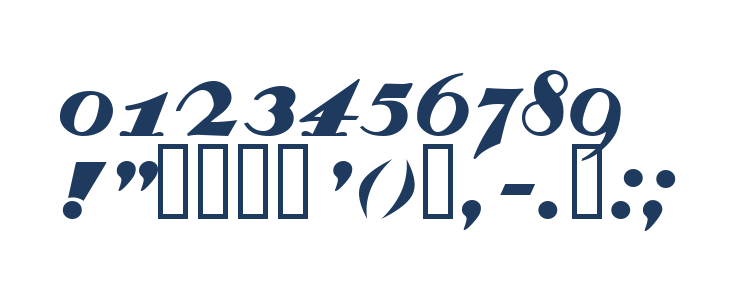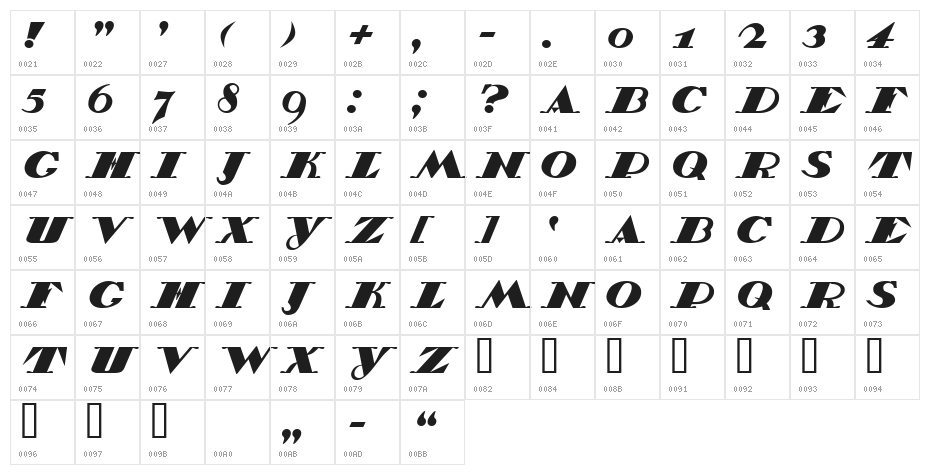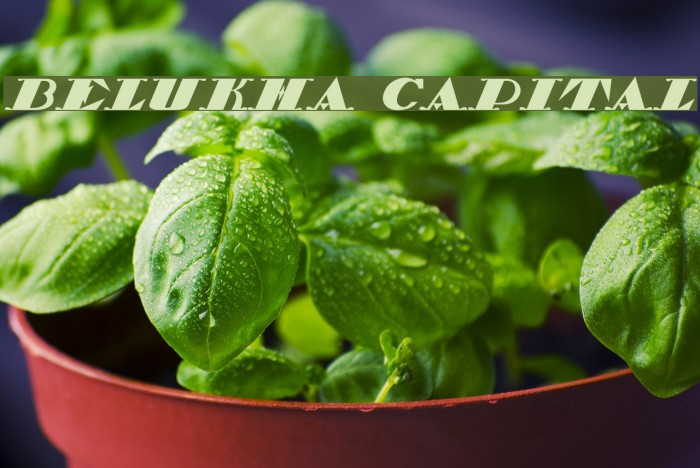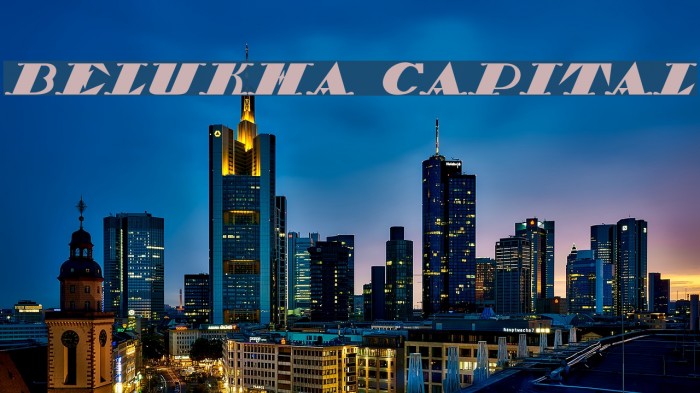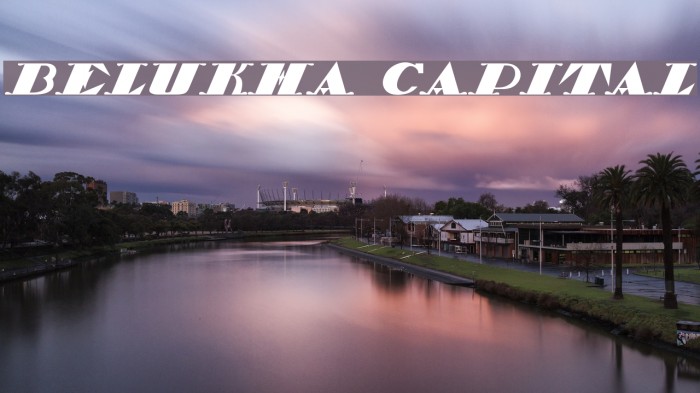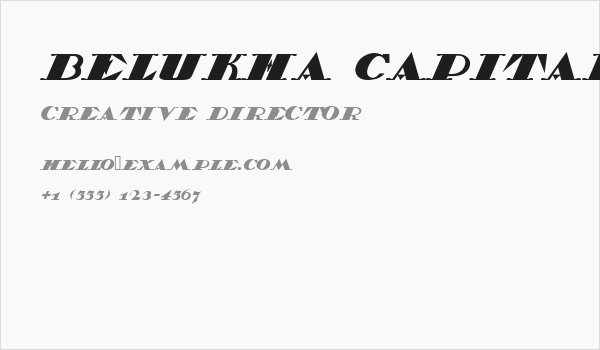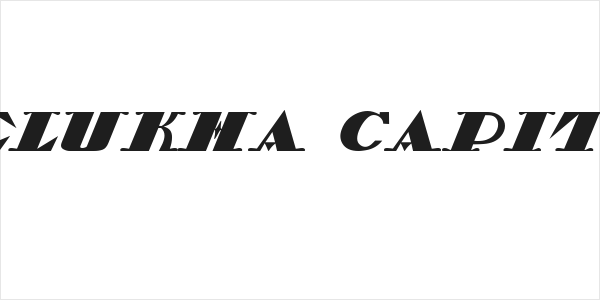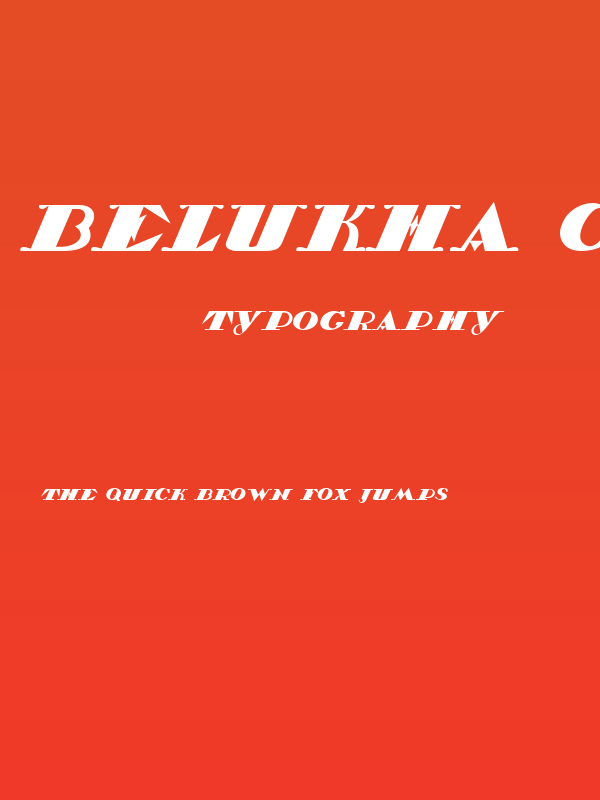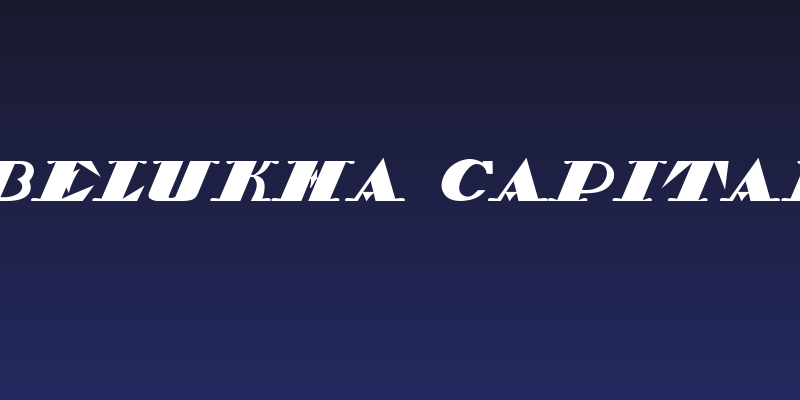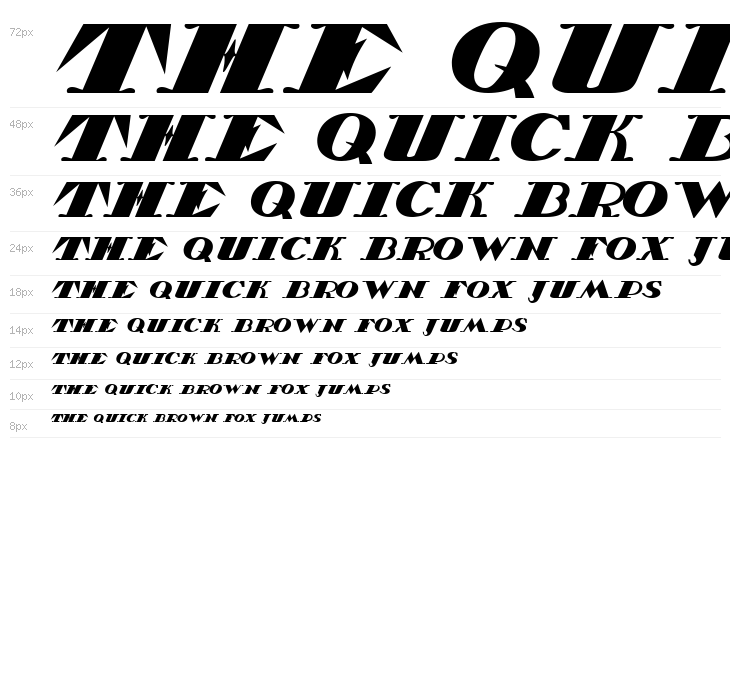
Belukha Capital Font
Belukha Capital Description
This font exhibits a bold and dynamic style, characterized by its strong diagonal emphasis and sharp serifs. The uppercase letters have a distinct slant, giving them a sense of movement and energy. The lowercase letters maintain this slant, creating a cohesive look throughout the typeface. Numbers are equally bold, with a consistent weight that matches the letters. Special characters are designed to complement the overall aesthetic, featuring similar angular cuts and bold strokes. This font's unique style makes it stand out, ideal for projects that require a strong visual impact.